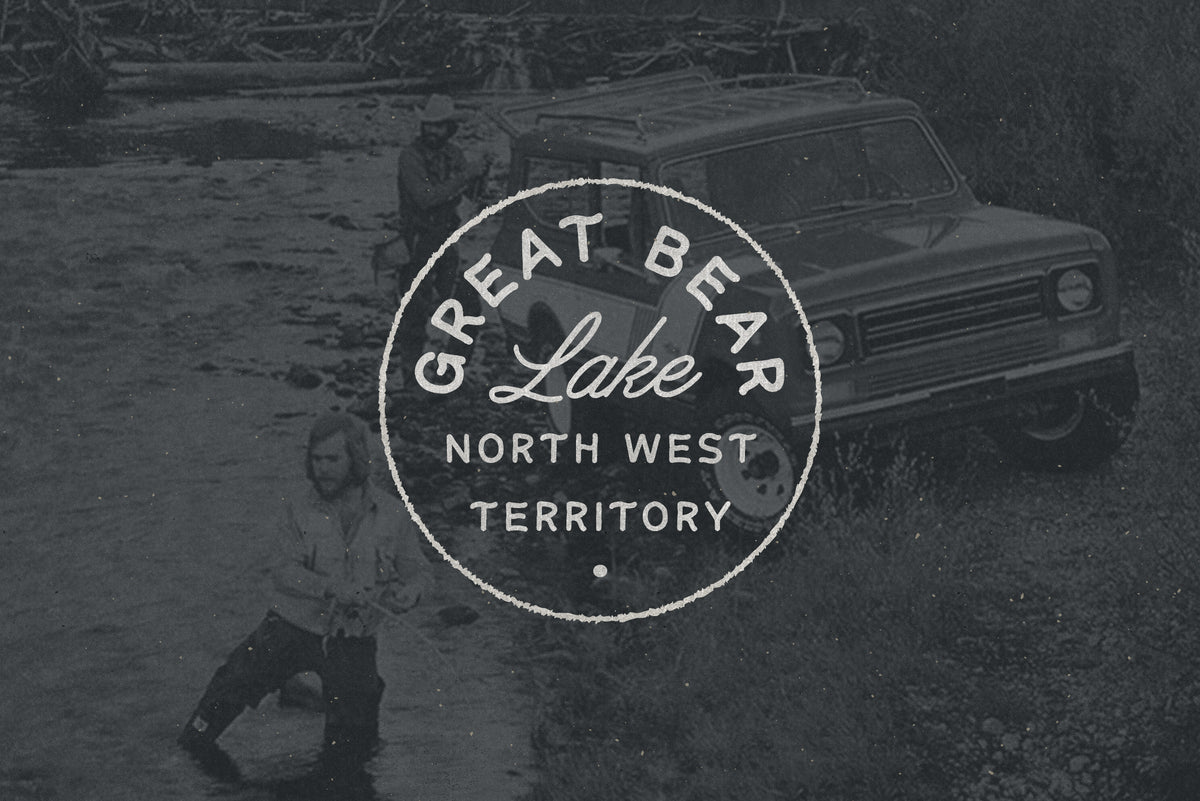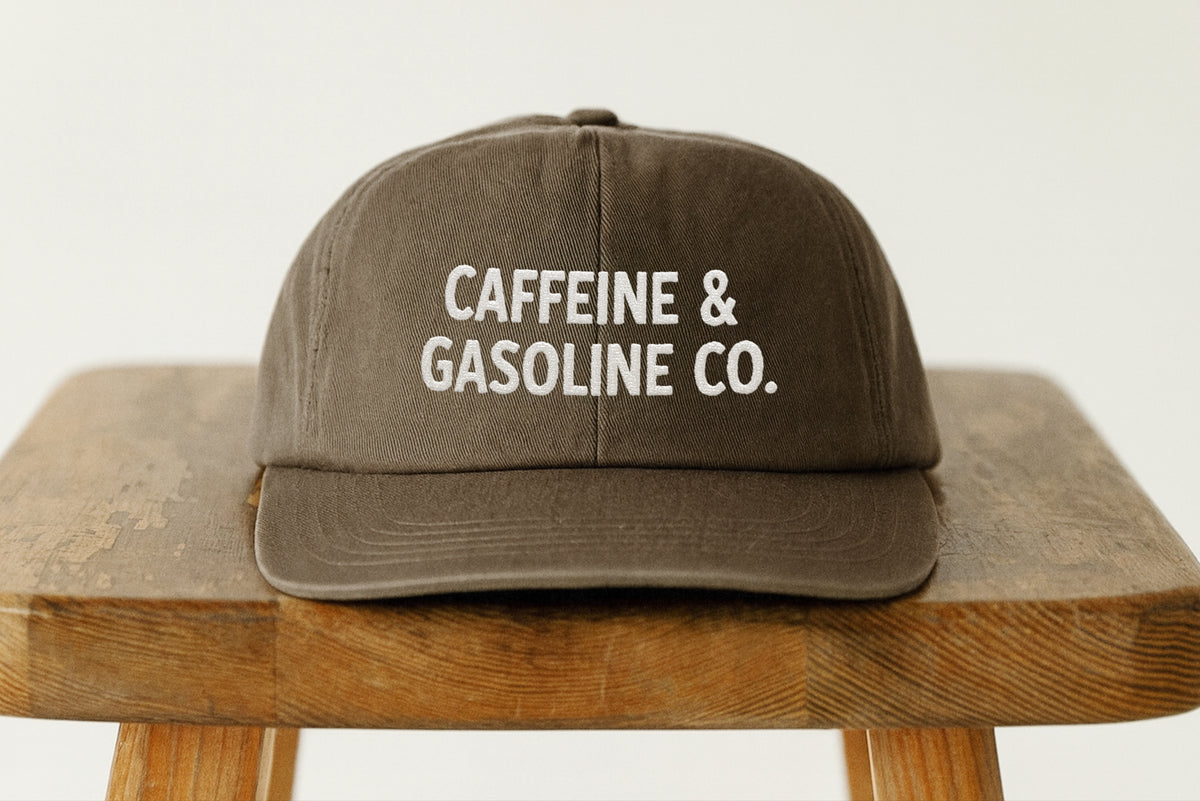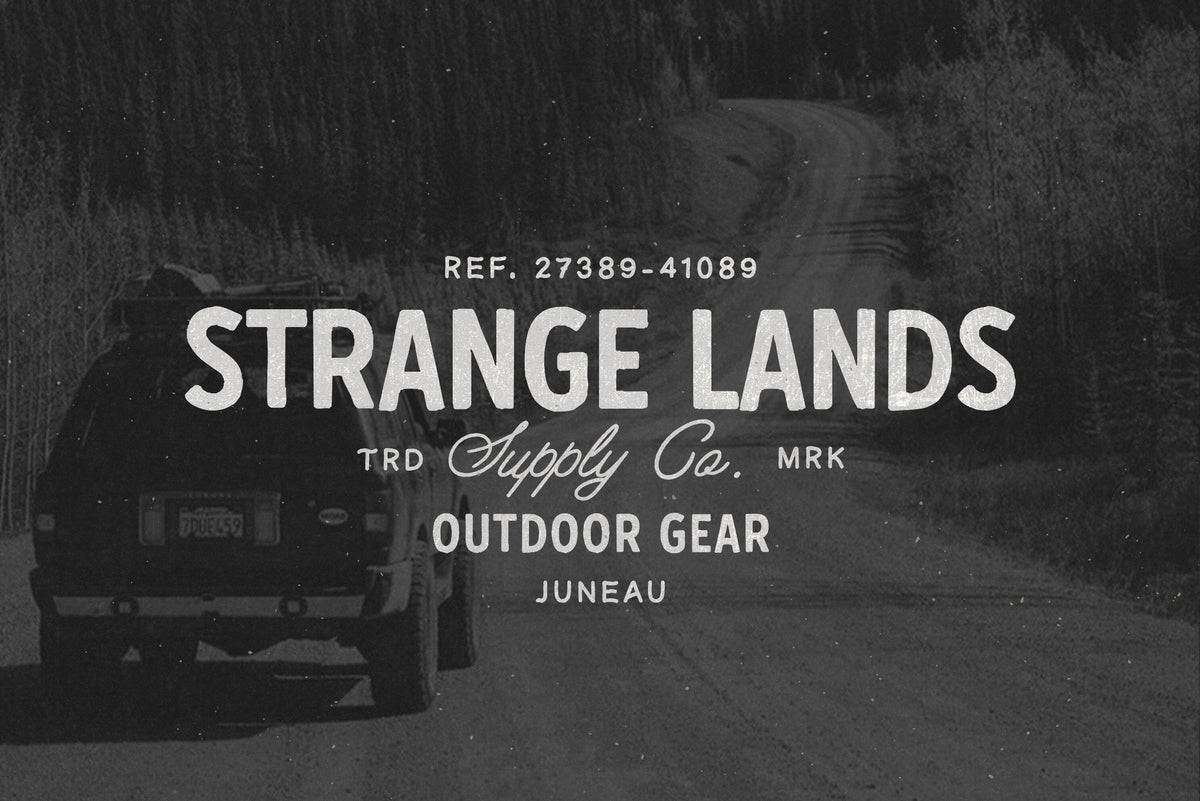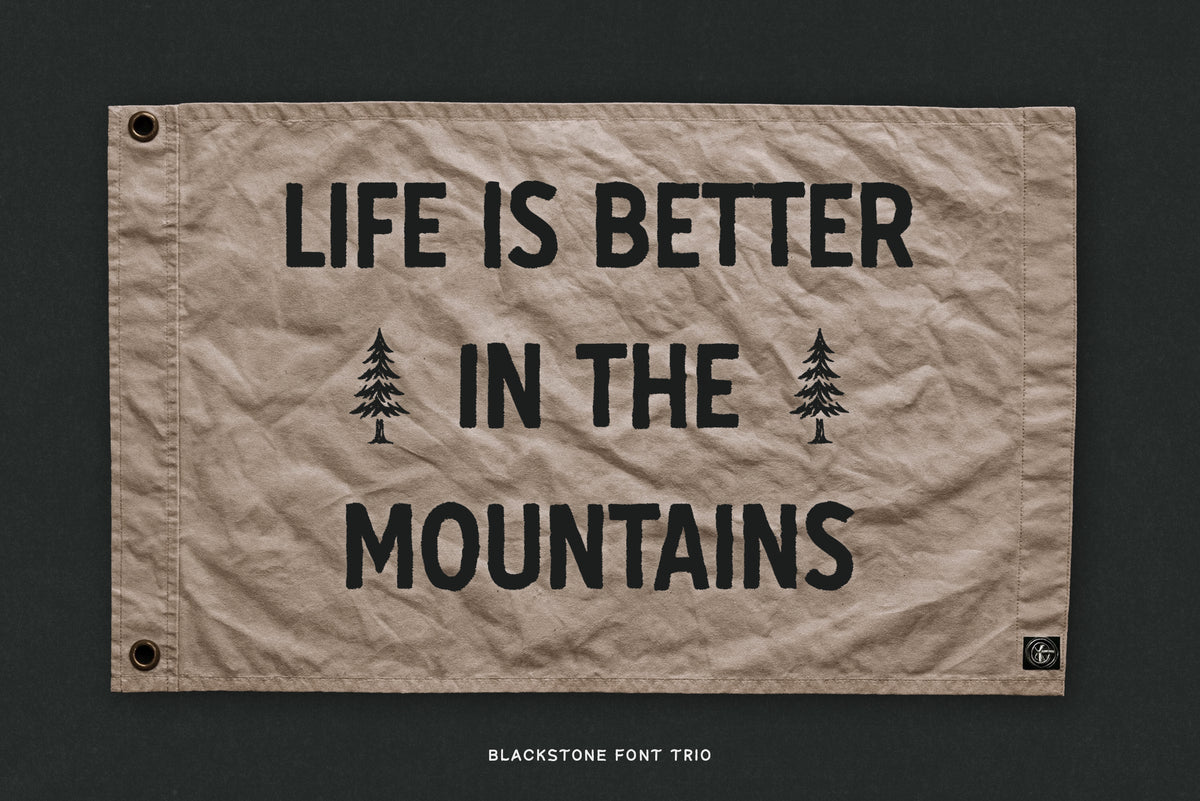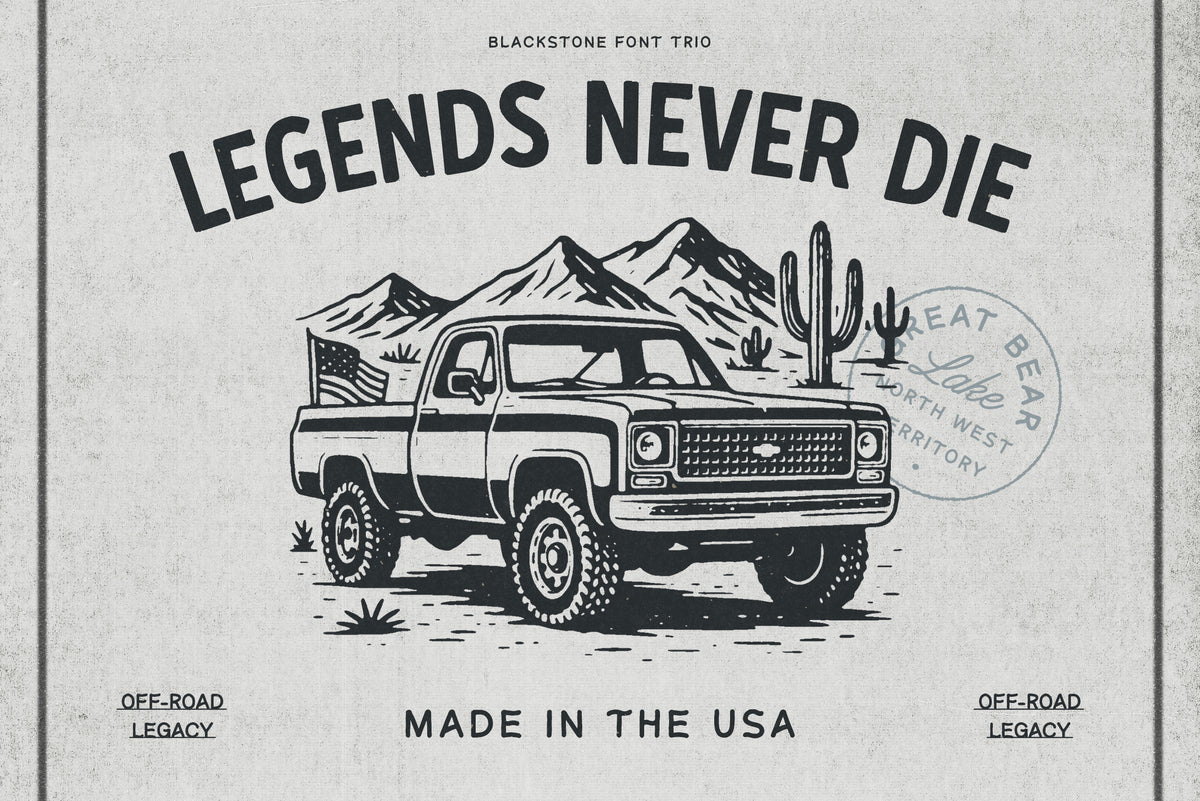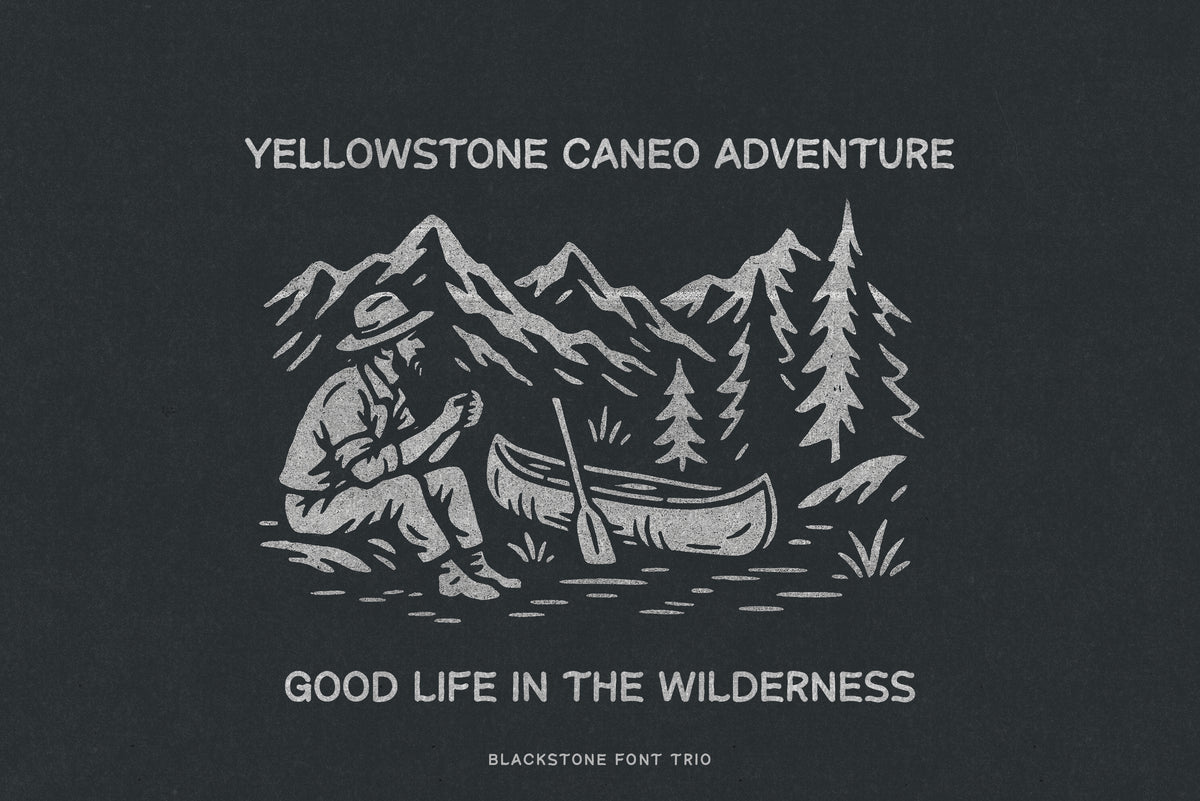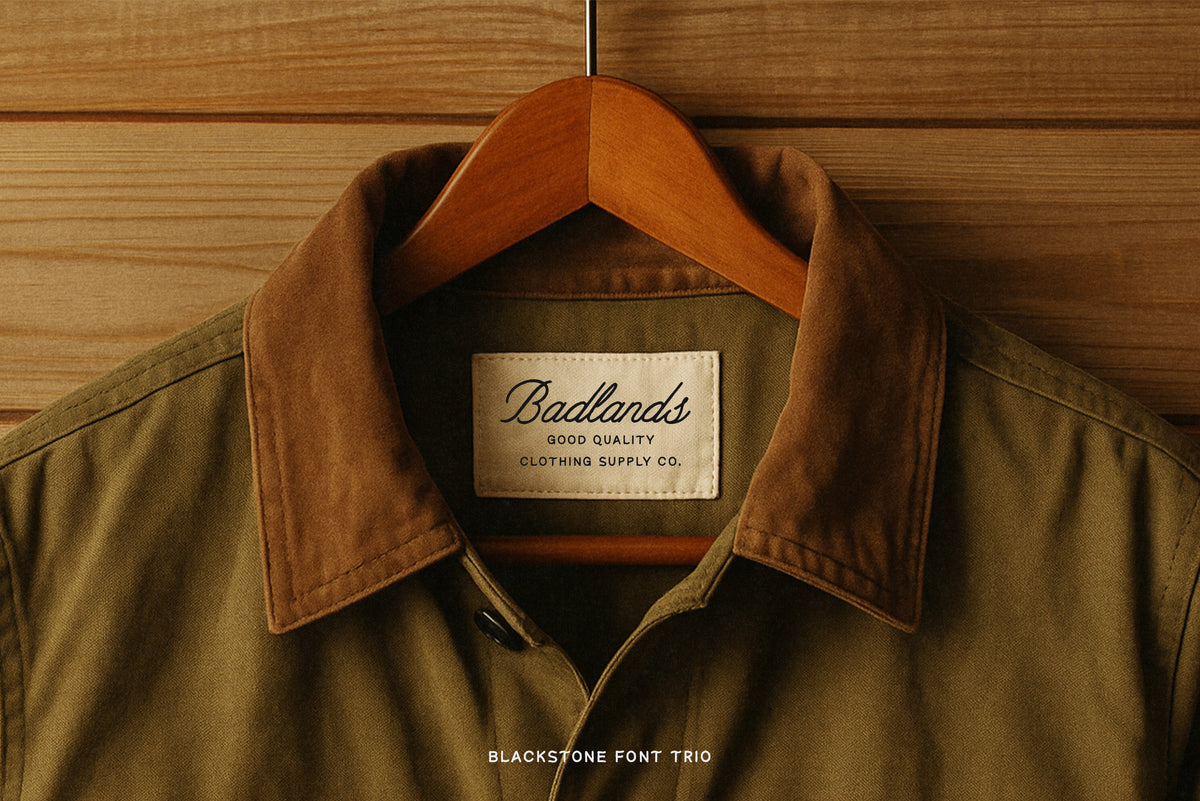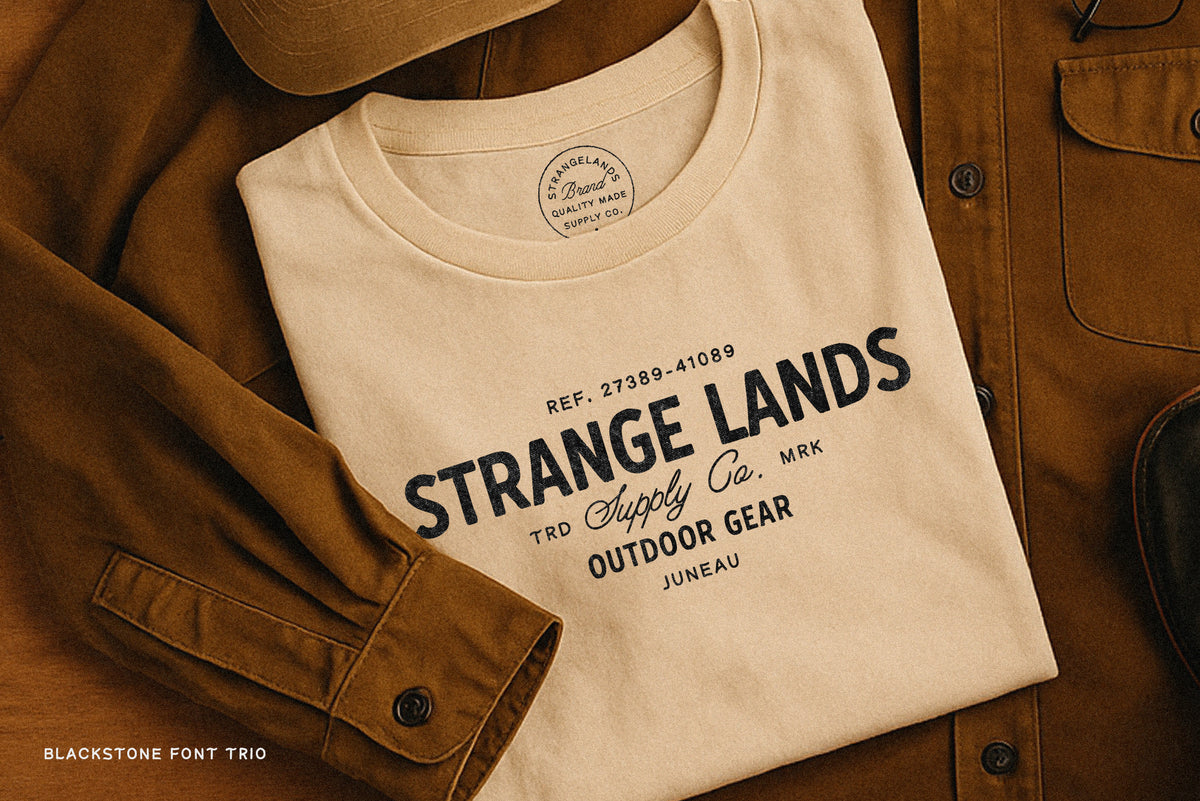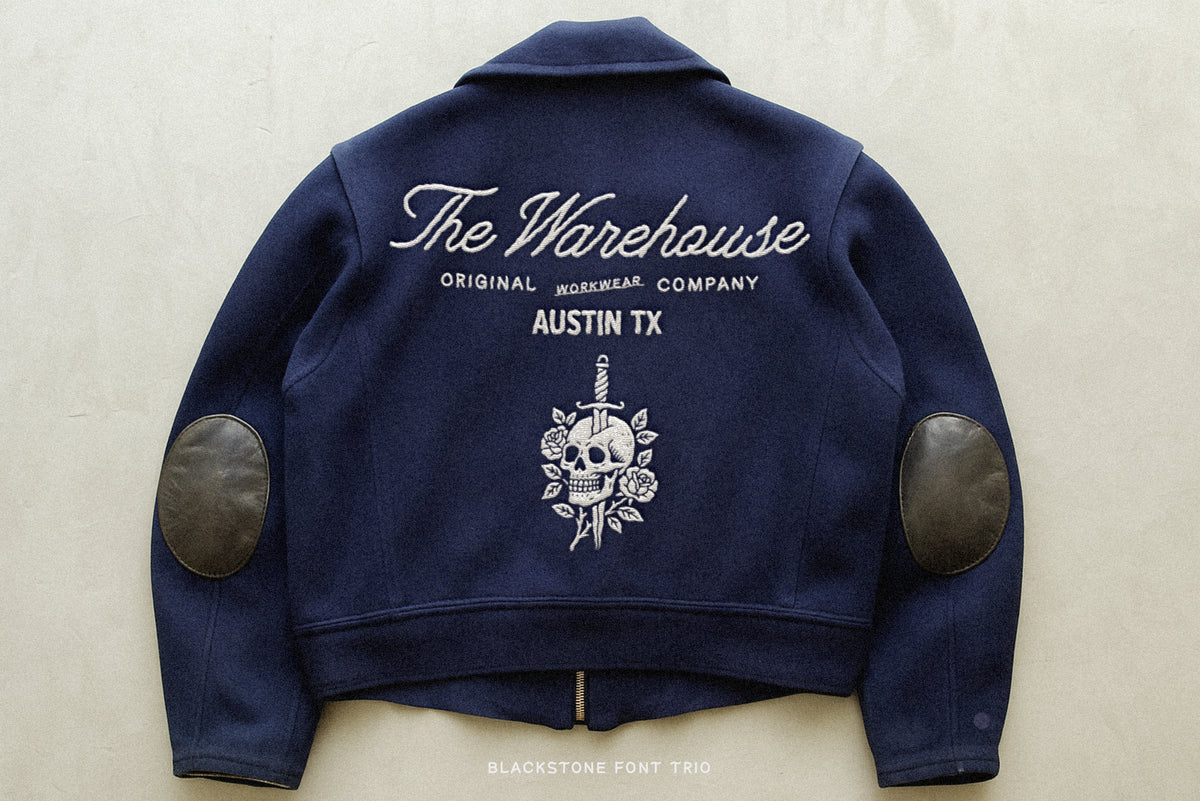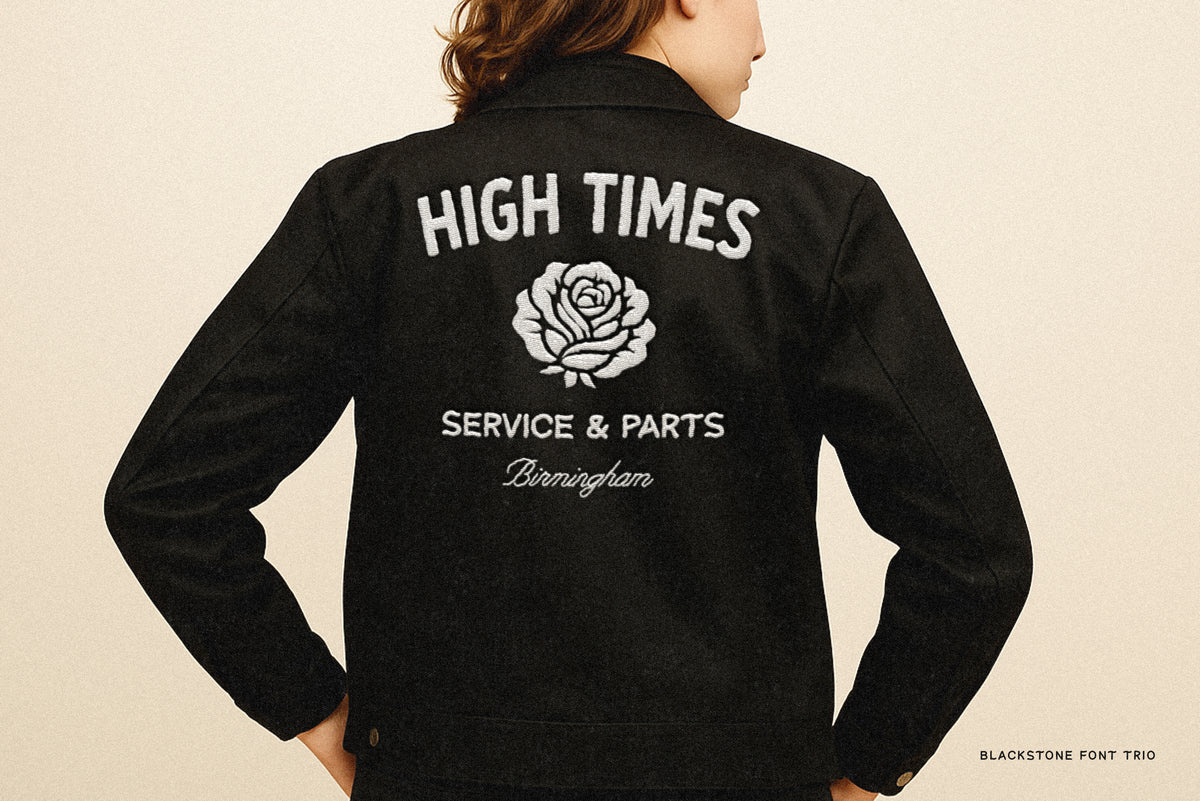
Blackstone – Handmade Font Trio
Bold, timeless, and full of character. Blackstone is a handcrafted font trio made for creators who want their work to feel authentic, adventurous, and built to last. Inspired by vintage outdoor design and heritage typography, Blackstone unites three distinctive styles that work perfectly together for endless design possibilities.
Blackstone Script – A flowing hand-drawn script with natural charm and rhythm. Ideal for signatures, badges, or bold headlines that need personality.
Blackstone Display – A powerful handcrafted sans built for logos, packaging, and apparel graphics that demand impact and clarity.
Blackstone Caption – A clean, legible companion font designed for small text, taglines, and product details.
Whether you’re designing logos, apparel, labels, posters, or outdoor-inspired branding, this trio gives your work an authentic handmade look with versatility and soul. Each style was carefully drawn by hand, preserving the subtle imperfections that make handcrafted lettering truly unique.
Blackstone is more than just a font collection — it’s a creative toolkit forged with strength, craftsmanship, and a vintage spirit.
Logo & Badge Design
Vintage Apparel Graphics
Outdoor Adventure Branding
Packaging & Labels
Posters, Signs & Merch